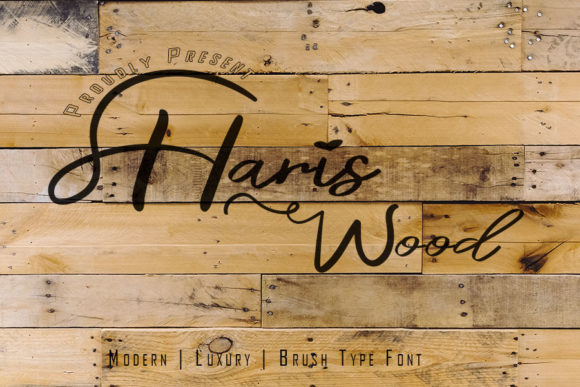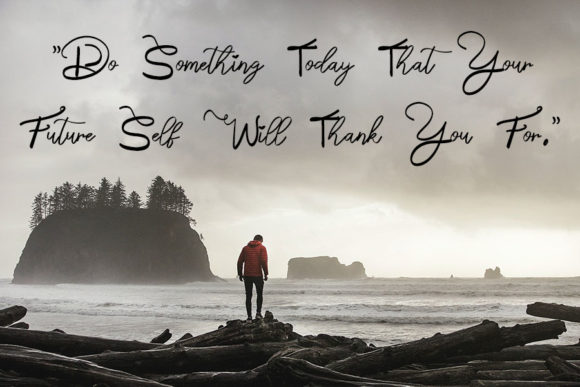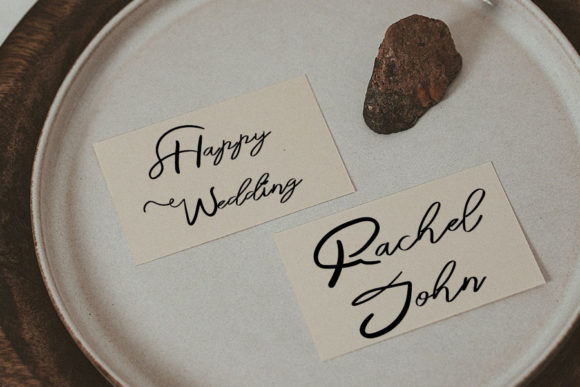
About Haris Wood Font
Haris Wood is an incredibly unique handwritten font. Masterfully designed to become a true favorite, this font has the potential to bring each of your creative ideas to the highest level!This font is PUA encoded which means you can access all of the glyphs and swashes with ease!